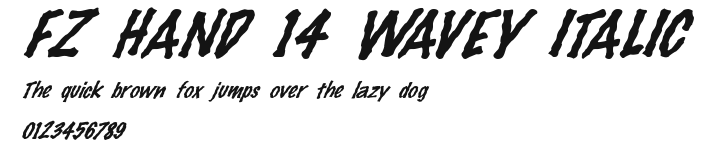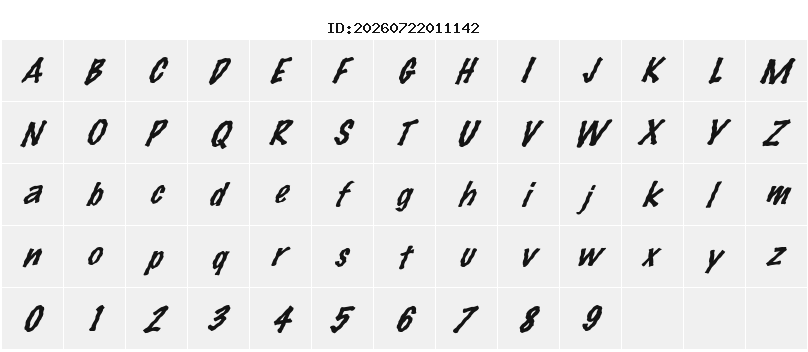
FZ HAND 14 WAVEY ITALIC Preview
About FZ HAND 14 WAVEY ITALIC.ttf
FZ HAND 14 WAVEY ITALIC.ttf is a modern, elegant sans-serif font designed for ultimate readability and visual harmony. Perfect for branding, headlines, web design, and print materials.